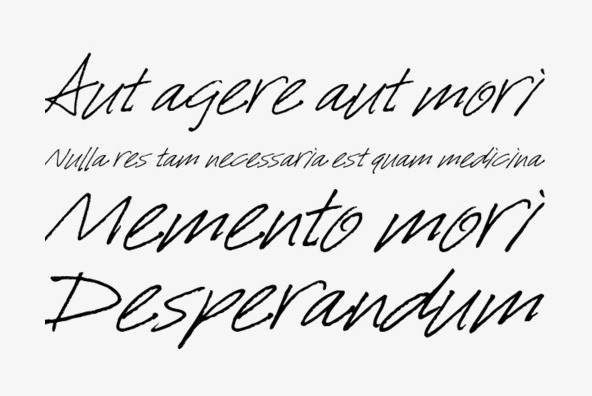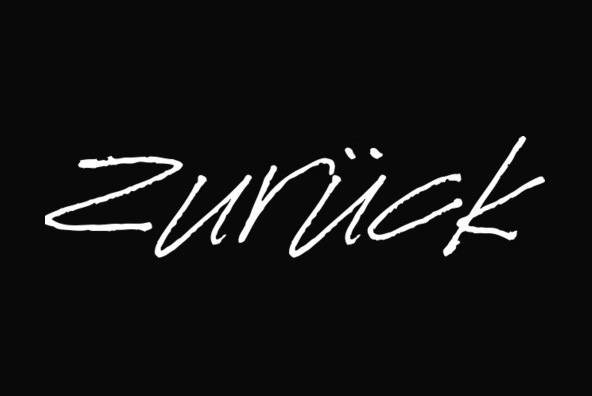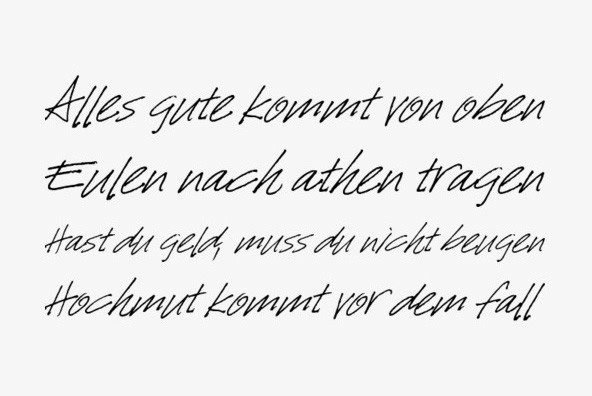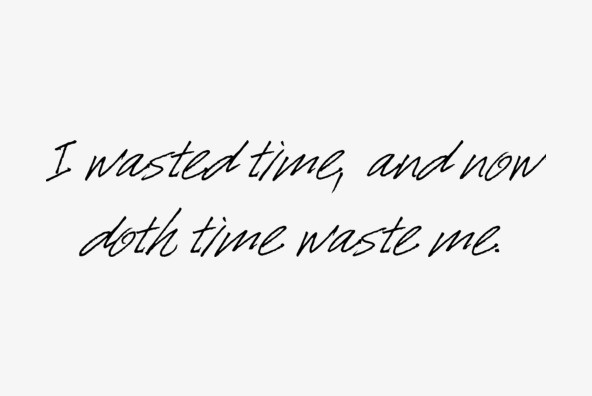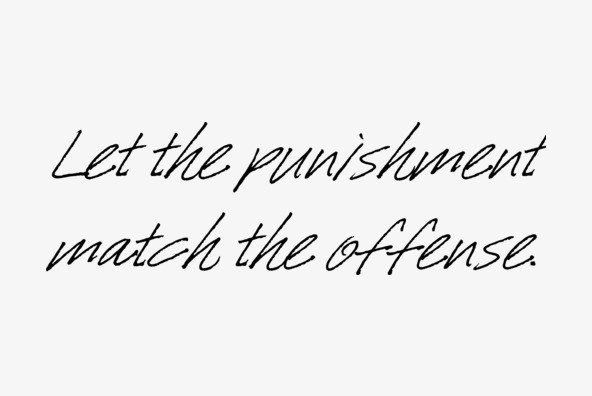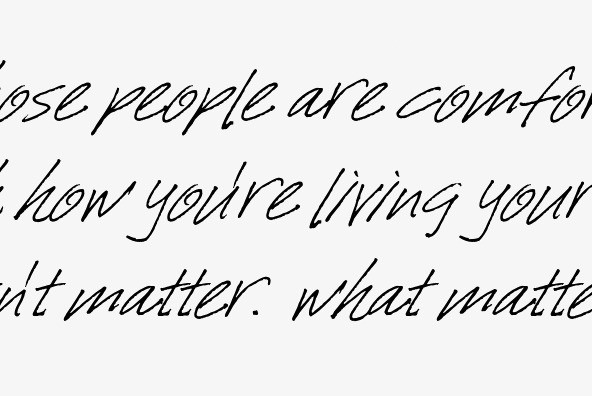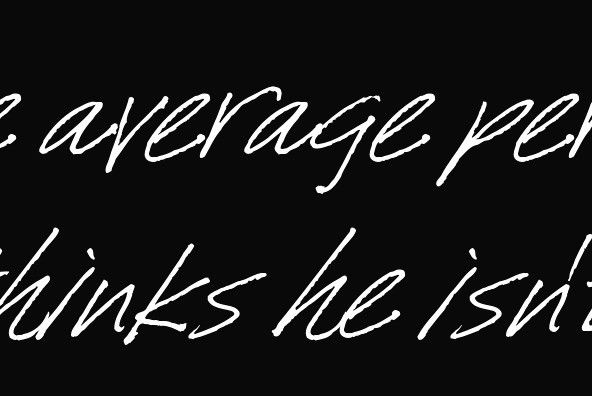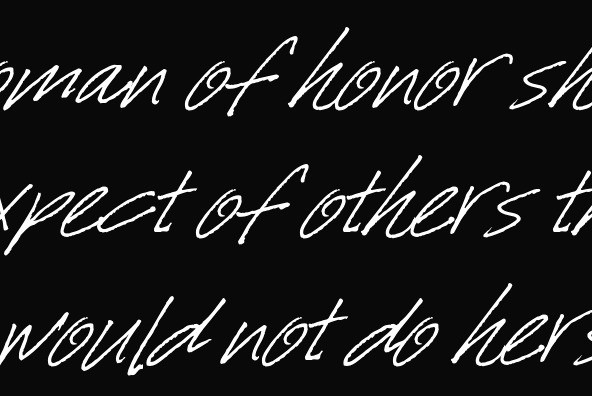
Ocalla Hand
Foundry: Breaking The Norm
Ocalla Hand comes from the hand of a seasoned Creative Director who uses this style during concepting meetings to critique comps and layouts internally.